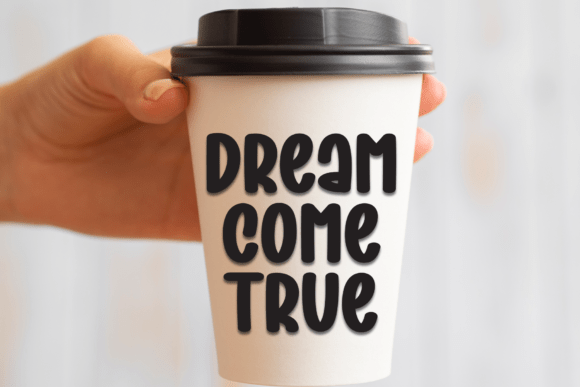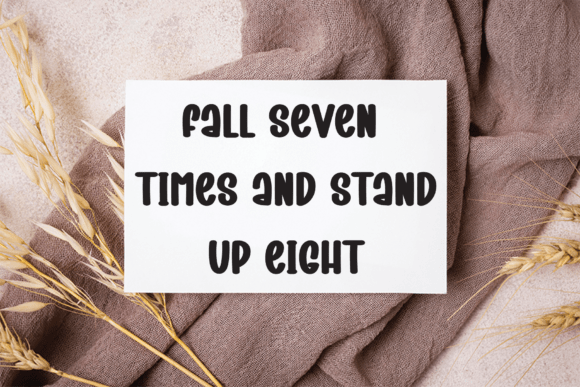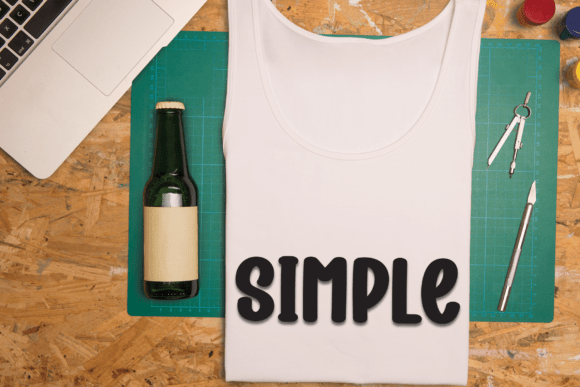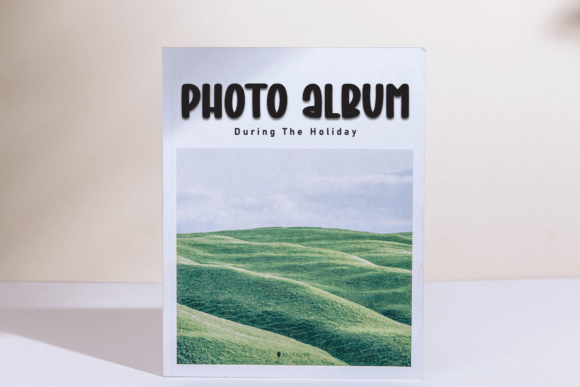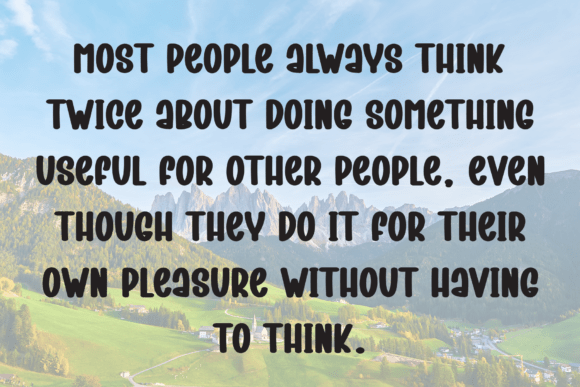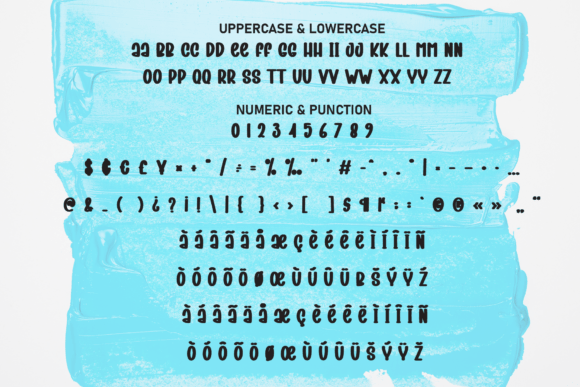
Discover the Perfect Blend of Warmth and Clarity with Blue Sticky Font
As designers, we’ve all been there – staring at a blank page, struggling to find the perfect font to bring our vision to life. But what if that elusive font was right in front of us, waiting to be discovered? For me, it was a late-night project, a tight deadline, and a desperate need for a font that would convey the warmth and personality of our brand. And then, like a breath of fresh air, I stumbled upon the Blue Sticky Font.
This delightful display font is designed to bring a sense of approachability and clarity to your projects, making it perfect for branding, headlines, and everyday designs. With its clean structure and balanced letterforms, the Blue Sticky Font offers readability and charm, ensuring every message feels genuine and inviting. Whether you’re a seasoned pro or just starting out, this font is a valuable addition to any designer’s toolkit.
Key Features of Blue Sticky Font
- Font Family: Blue Sticky Font is a unique, hand-drawn font designed to evoke a sense of playfulness and whimsy.
- Character Set: Includes a wide range of characters, including uppercase and lowercase letters, numbers, punctuation marks, and special characters.
- Unique Characteristics: Features a distinctive, hand-painted aesthetic with subtle texture and imperfections, adding a touch of authenticity to designs.
- Font Style: Available in regular and bold styles, allowing designers to add depth and emphasis to their text.
Blue Sticky Font Review
I recently had the chance to work with the Blue Sticky Font, and I must say it’s an interesting font. Let’s dive into the good and the not-so-good.
- Unique and modern design: Blue Sticky Font has a distinct aesthetic that can definitely make your designs stand out.
- Good legibility: Despite its bold and playful nature, the font is still easy to read, especially at larger sizes.
- Works well for titles and headings: The font’s boldness makes it perfect for grabbing attention and adding emphasis to your titles and headings.
- Not suitable for body text: Due to its bold and playful nature, Blue Sticky Font can be overwhelming when used for large blocks of text.
- Limited versatility: While the font works well for titles and headings, it may not be the best choice for more formal or professional designs.
- May not be accessible for all users: The font’s boldness and unique design may not be easily readable for users with certain visual impairments.
Overall, Blue Sticky Font is a fun and modern font that can add a touch of personality to your designs. While it has its limitations, it’s a great choice for titles, headings, and other design elements where you want to grab attention. Just be mindful of its limitations and use it responsibly.
The Blue Sticky Font is ideal for:
- Creative headings and titles
- Emphasizing important information
- Adding a touch of personality to your designs
Pacifico is a beautiful, modern script font that is perfect for creating a relaxed and elegant feel. It works well for headings, titles, and even body text in certain contexts.
Compared to Blue Sticky Font, Pacifico has a more refined and polished look, while Blue Sticky Font is more playful and fun. Pacifico is suitable for a wider range of designs, from fashion to wellness, while Blue Sticky Font is better suited for creative and playful projects.
Great Vibes is a stylish, handwritten font that is great for adding a touch of personality to your designs. It works well for titles, headings, and even body text in a creative context.
Compared to Blue Sticky Font, Great Vibes has a more casual and laid-back feel, while Blue Sticky Font is more playful and fun. Great Vibes is suitable for projects that require a relaxed and approachable tone, while Blue Sticky Font is better suited for more energetic and creative projects.